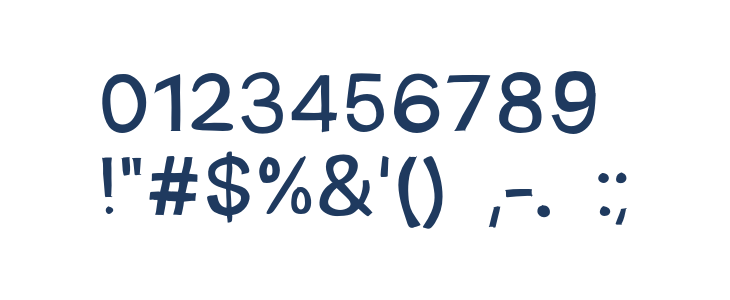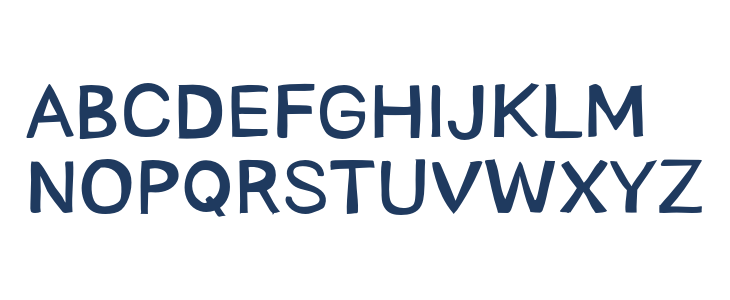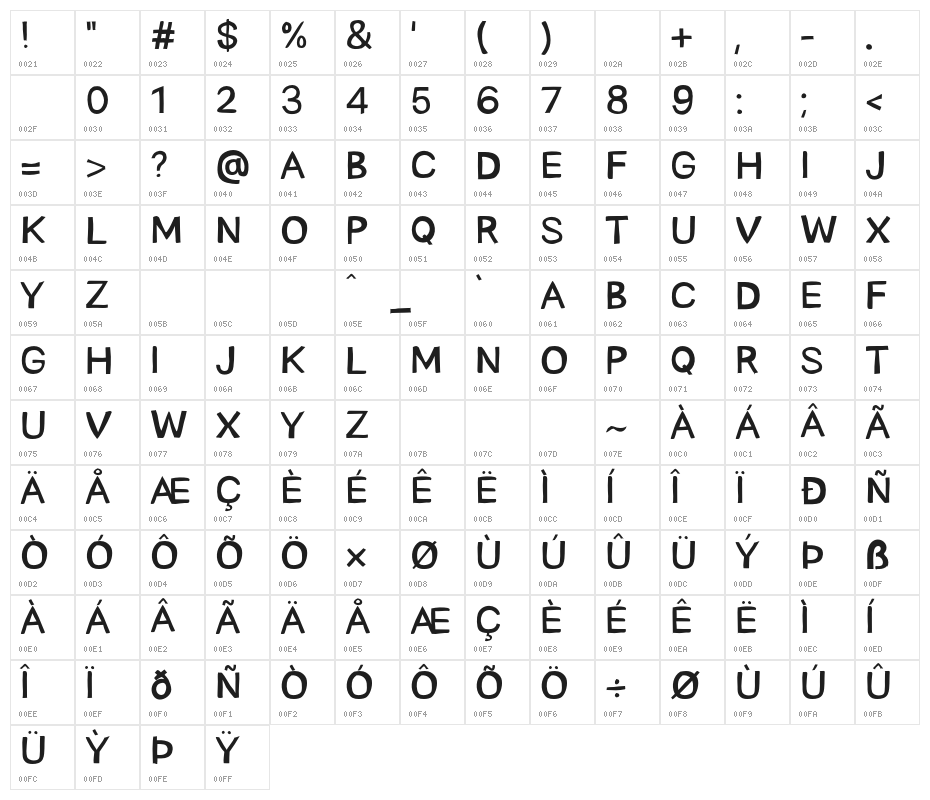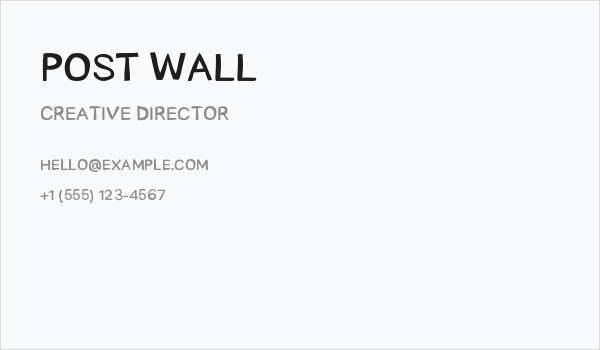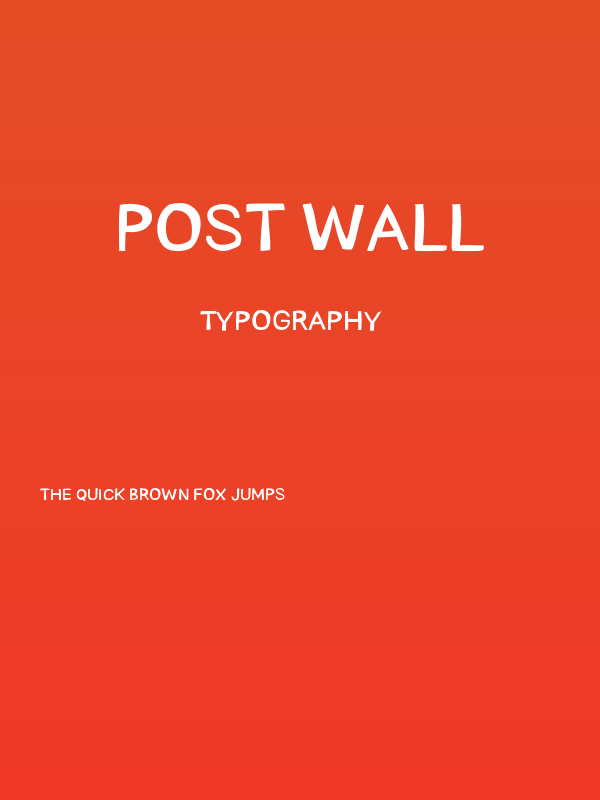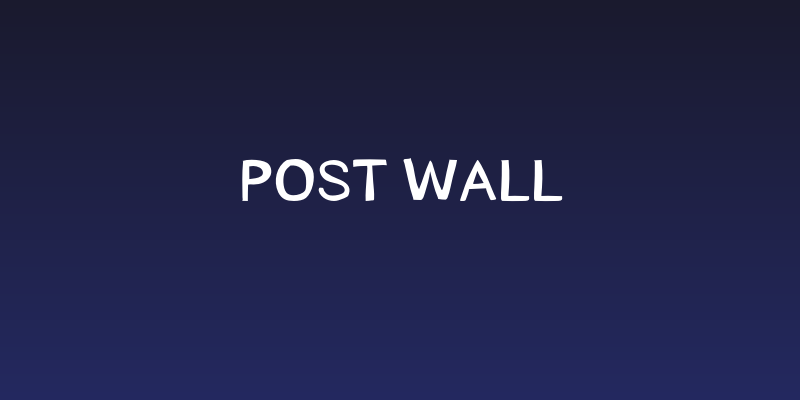
Post Wall Font
Post Wall Description
A playful sans-serif typeface with irregular, hand-drawn letterforms and slightly varying stroke thickness, giving it a casual and informal appearance. The characters are rounded and slightly uneven, contributing to a friendly and approachable feel.
| Overall Style | Handwritten, Playful, Informal |
| Use Case | Headlines, Posters, Informal branding, Children's content |
| Proposed Projects | ChildrenΓ’β¬β’s books, informal posters, greeting cards, educational materials, creative branding. |